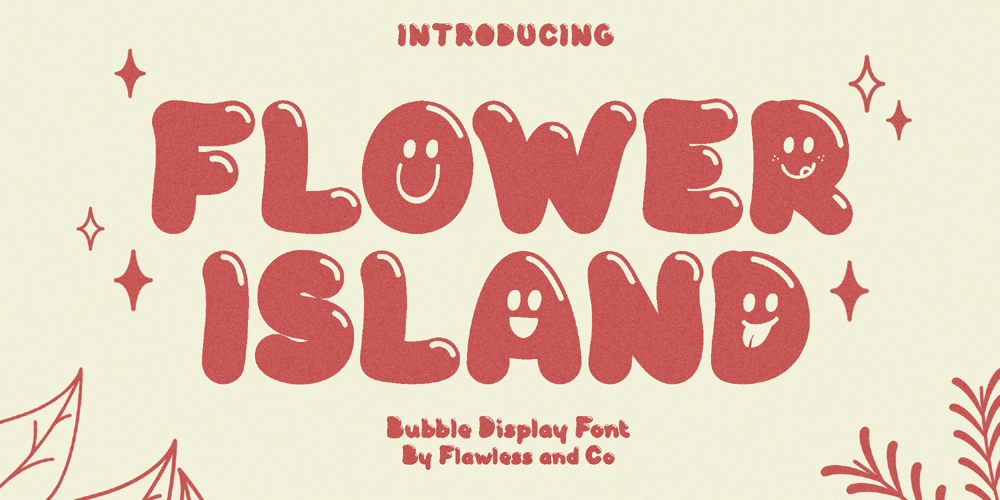
Flower Island
Flower Island font
Flower Island Font Family was designed by Achmad Yani and published by Flawlessandco. Flower Island contains 1 styles and family package options. Flower Island – A Playful Bubble Display Font. Immerse yourself in the whimsical world of Flower Island, a delightful bubble display font that adds a touch of fun and playfulness to your designs.There’s some connected letters and some alternates that suitable for any graphic designs.This font support for some multilingual. Also contains uppercase A-Z and lowercase a-z, alternate character, numbers 0-9, and some punctuation.If you need help, just write me! Thanks so much for checking out my shop!